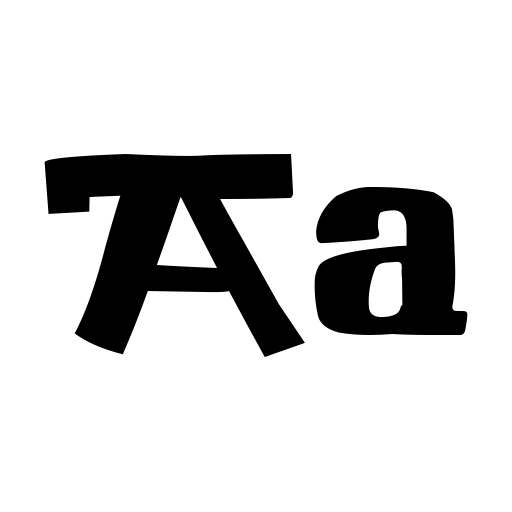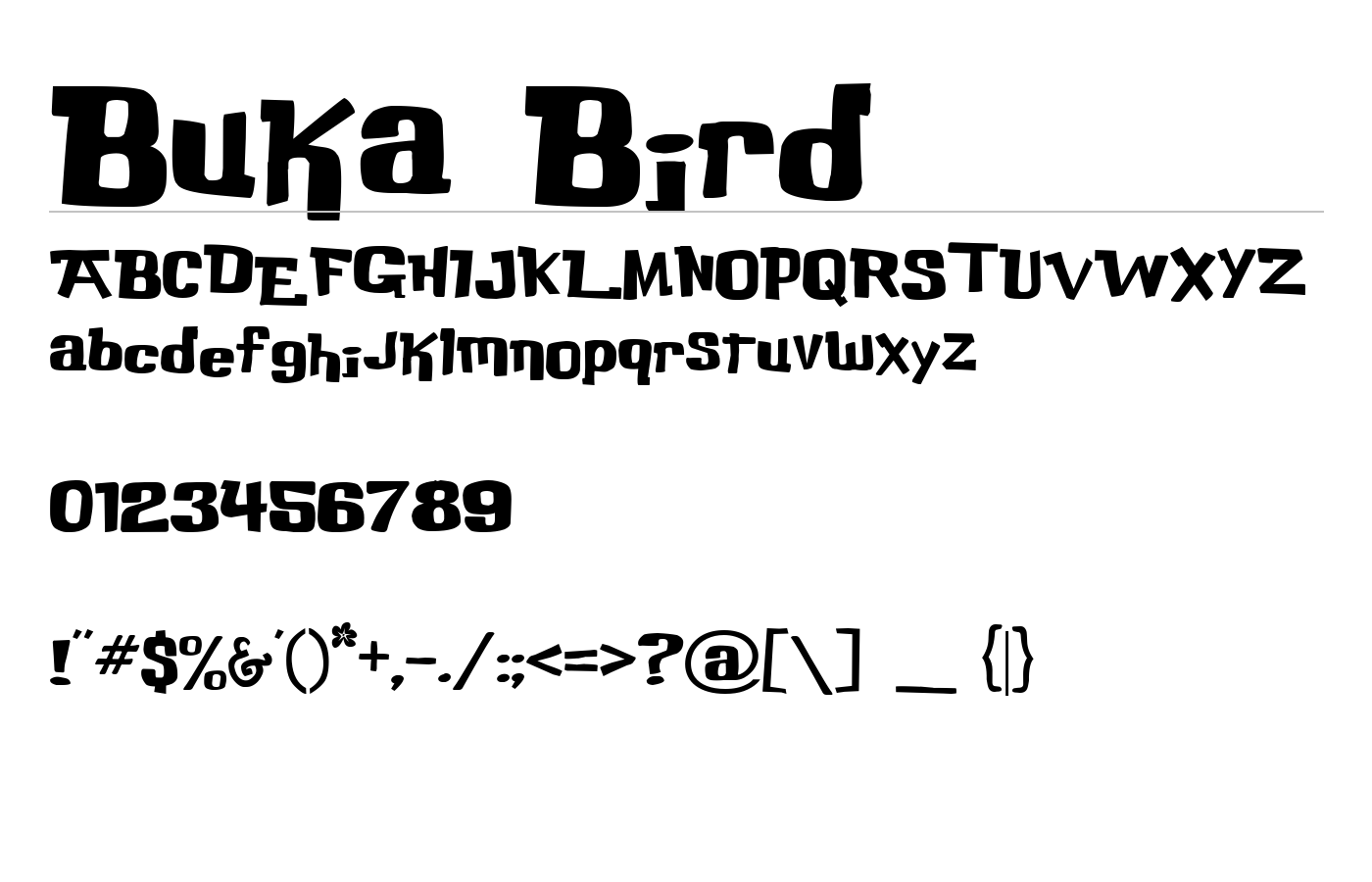
Buka Bird is a bold, playful sans serif font with irregular, slightly skewed letterforms that give it a quirky and handmade feel. Its wide, chunky shapes and uneven baseline make it perfect for fun, informal designs that need a distinctive, lively voice. This font works well for posters, logos, and headlines where a cheerful and approachable personality is desired.
Buka Bird Font
About Buka Bird Font